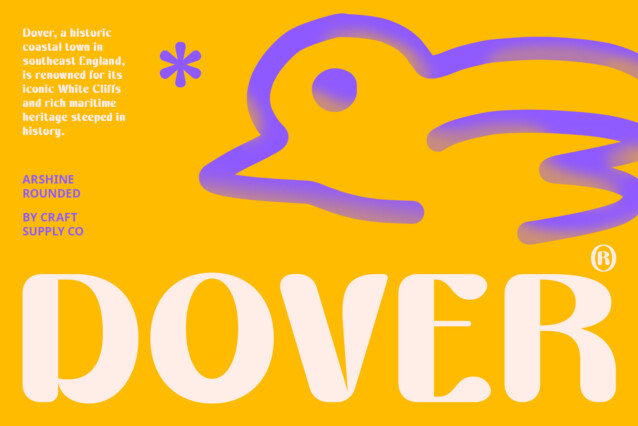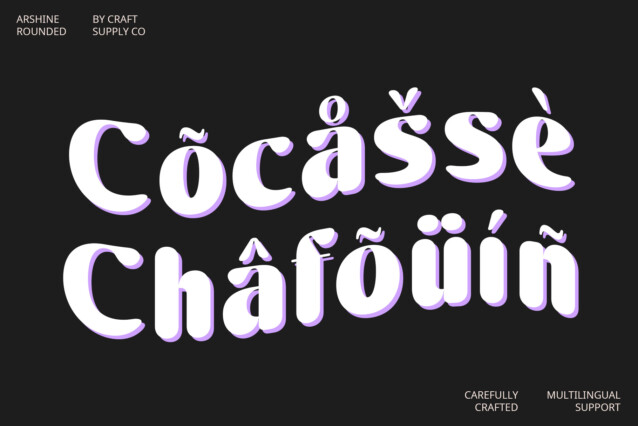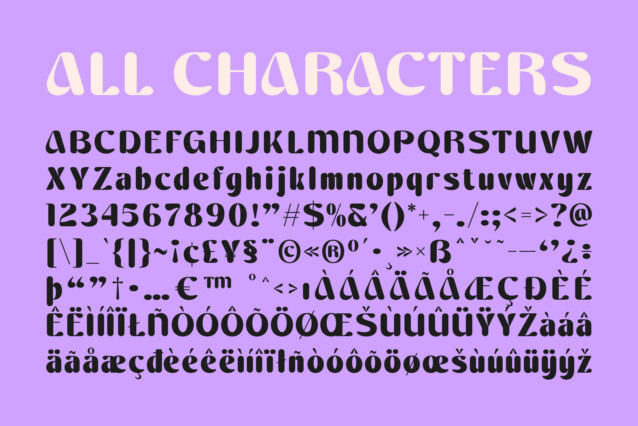
Arshine Rounded Font
Arshine Rounded Font is a sans serif font featuring bold, rounded shapes that exude a cute, retro, and funky vibe. Ideal for designs aiming to evoke a playful and nostalgic feel, it adds a distinctive charm to branding, posters, and creative projects.
Perfect for Creative Expression
With its playful and approachable aesthetic, Arshine Rounded allows designers to express creativity effectively. Whether used in digital designs or printed materials, this font captivates attention and invites engagement with its charming retro character.